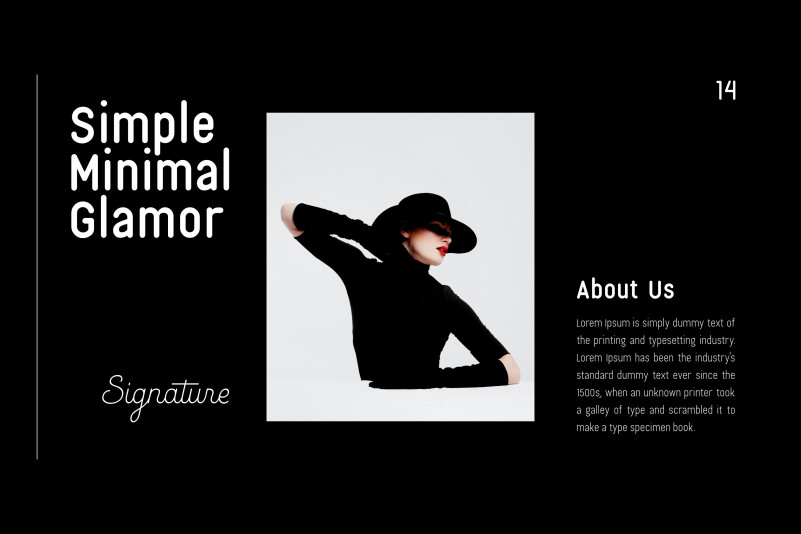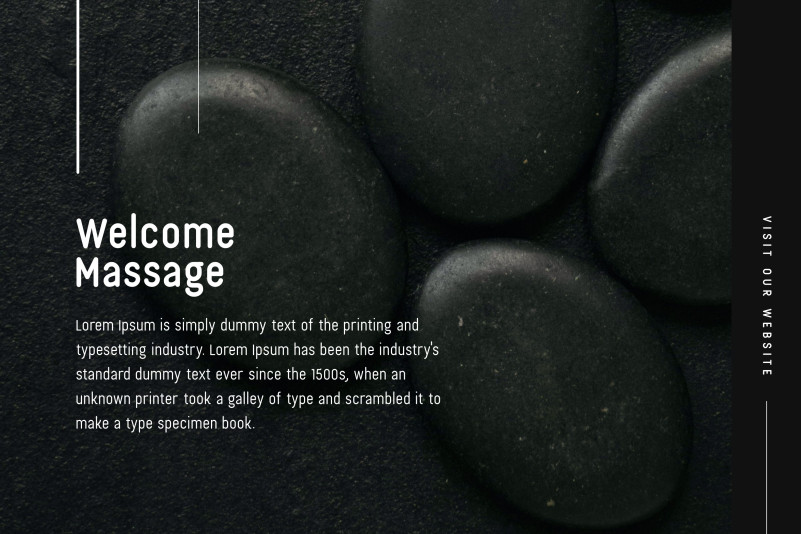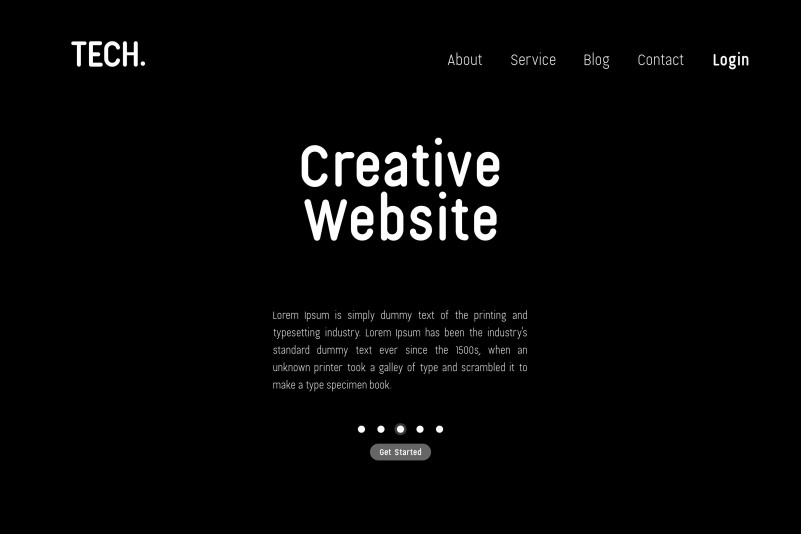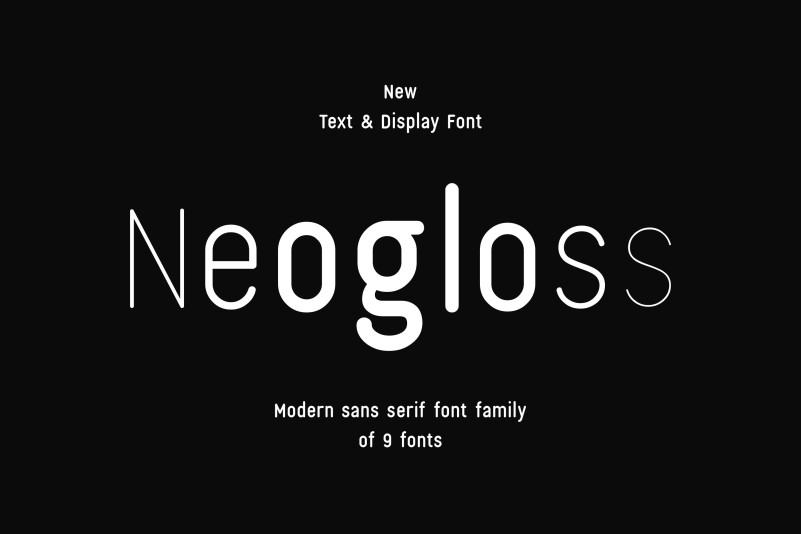
Neogloss Font Family
Neogloss Sans Serif Font  by Intuisi Creative is a clean and simple vintage sans serif font, with smooth edges to simulate vintage printing. A great choice for friendly web designs, kids products, and natural beauty brands, Neogloss provides a good organic feel to any project.